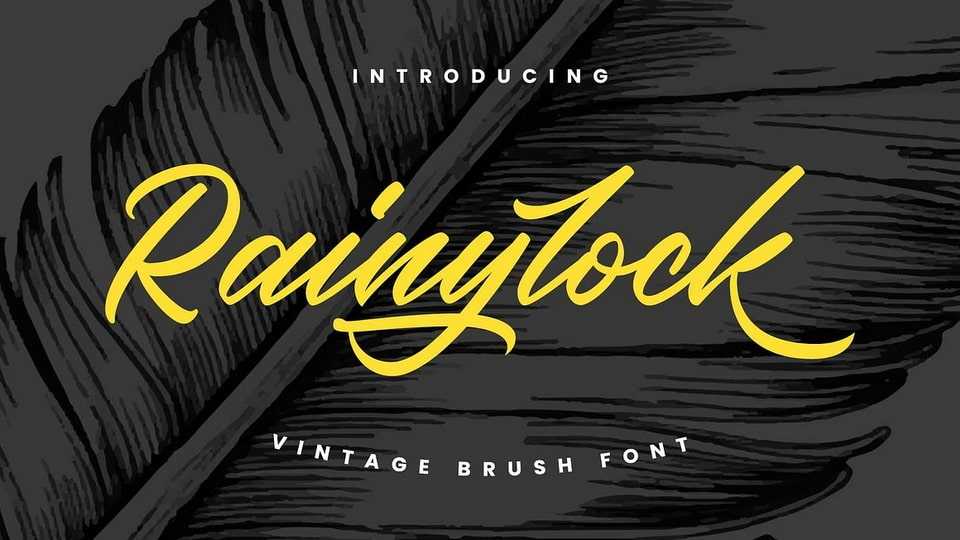
Download Rainylock font, a handwritten script brush typeface, crafted in a quick, handwritten style and enhanced with a variety of swashes to add more typographic flair.